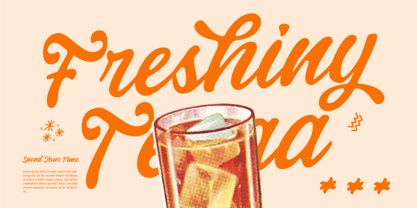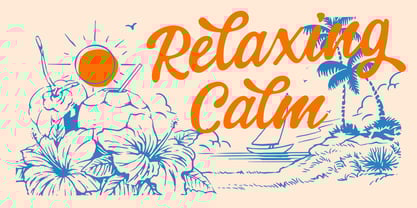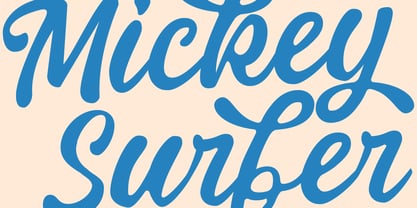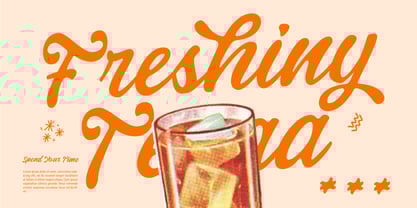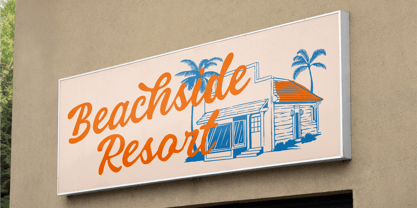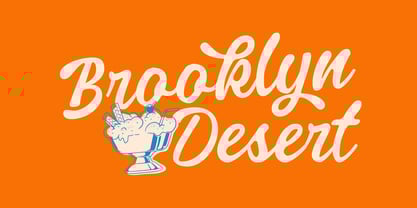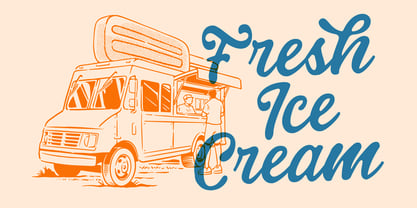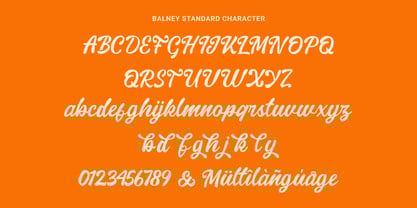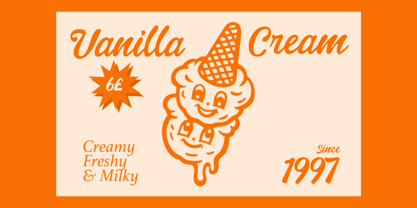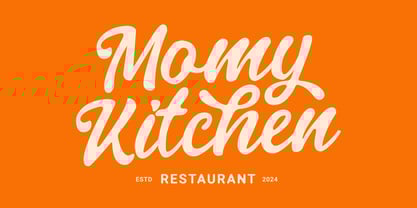
Balney
by Azzam Ridhamalik
The Balney Font Family was designed by Azzam Ridhamalik and published by Azzam Ridhamalik. Balney contains 1 styles. More about this family
Balney Font is a charming rounded script typeface that perfectly blends retro warmth with modern freshness. With its smooth flowing curves and balanced strokes, it embodies the carefree spirit of summer while maintaining professional versatility across various applications. Each character has been meticulously crafted to ensure seamless connections and natural flow, making it ideal for brands that want to convey a friendly and approachable personality.
The font’s distinctive style carries strong summer nostalgia while remaining contemporary and highly readable across different sizes. From food & beverage branding to lifestyle products, Balney delivers that perfect blend of playfulness and sophistication through its complete character set, multilingual support, and optimized kerning. Transform your designs with Balney Font – where summer vibes meet professional typography, ideal for creating memorable brand identities that stand out.